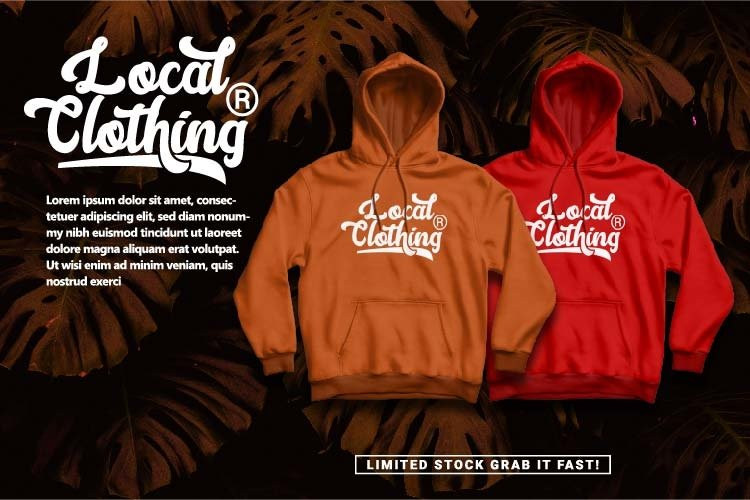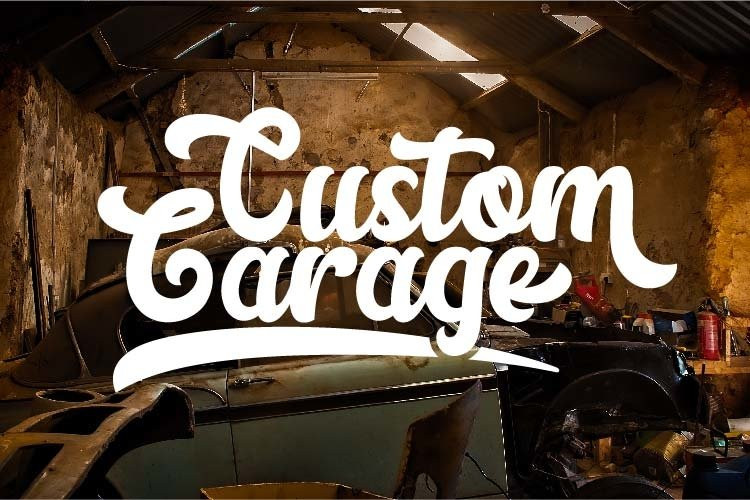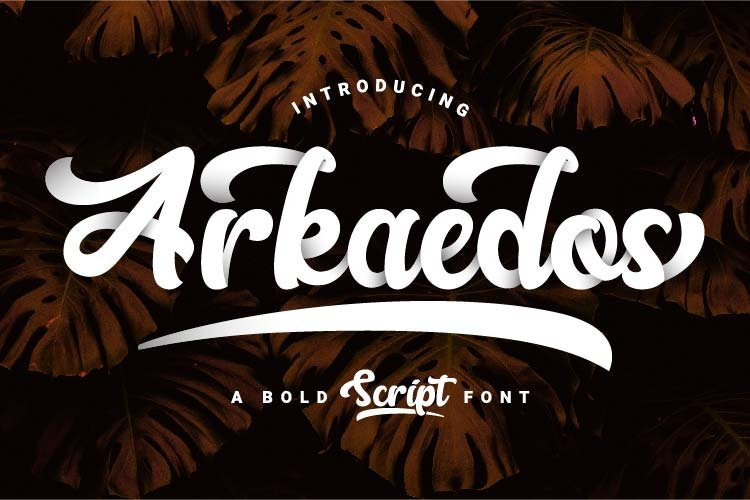
Arkaedos Font
Arkaedos FontHere is a script font with a bold and cool style. Can be applied in various media such as vintage logos / logos, clothing, food packaging, brand names, posters, broadcasts or youtube thumbnails, even album covers!